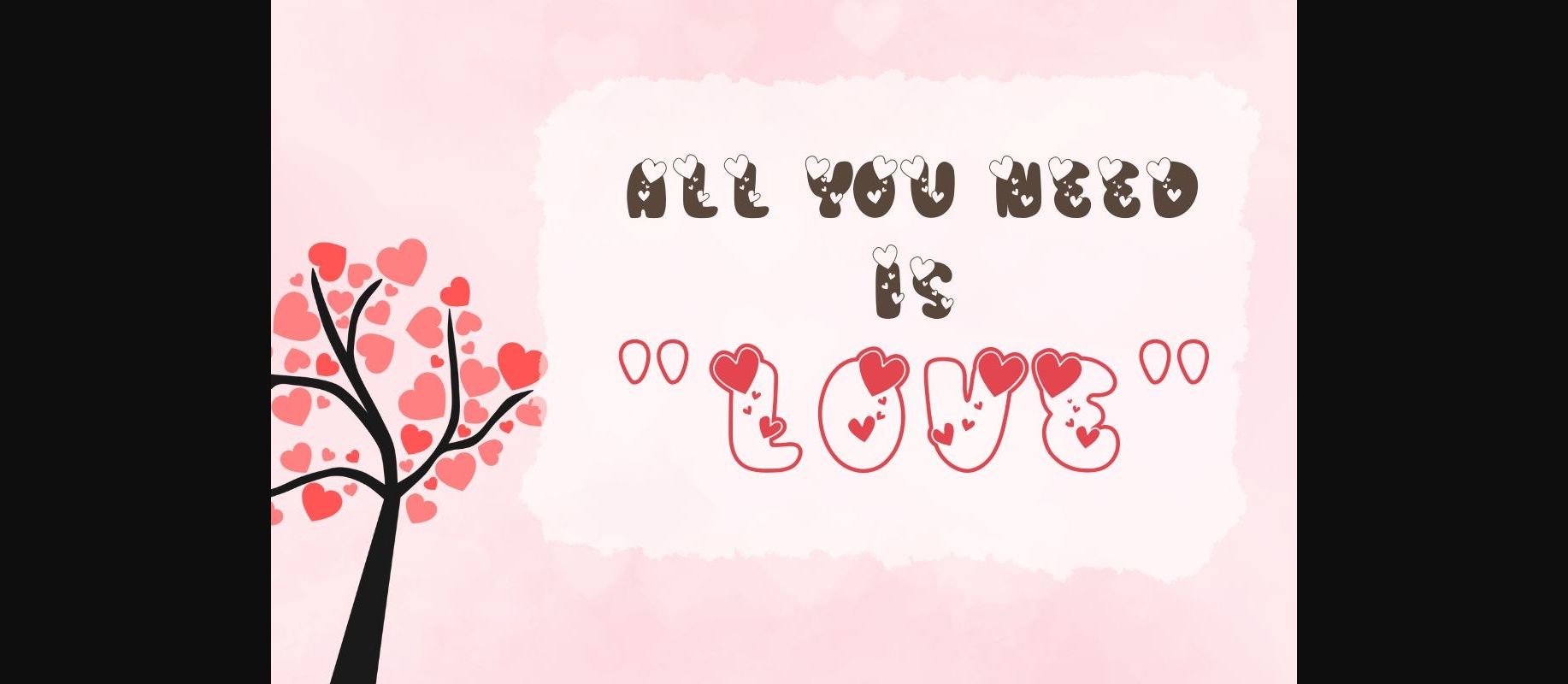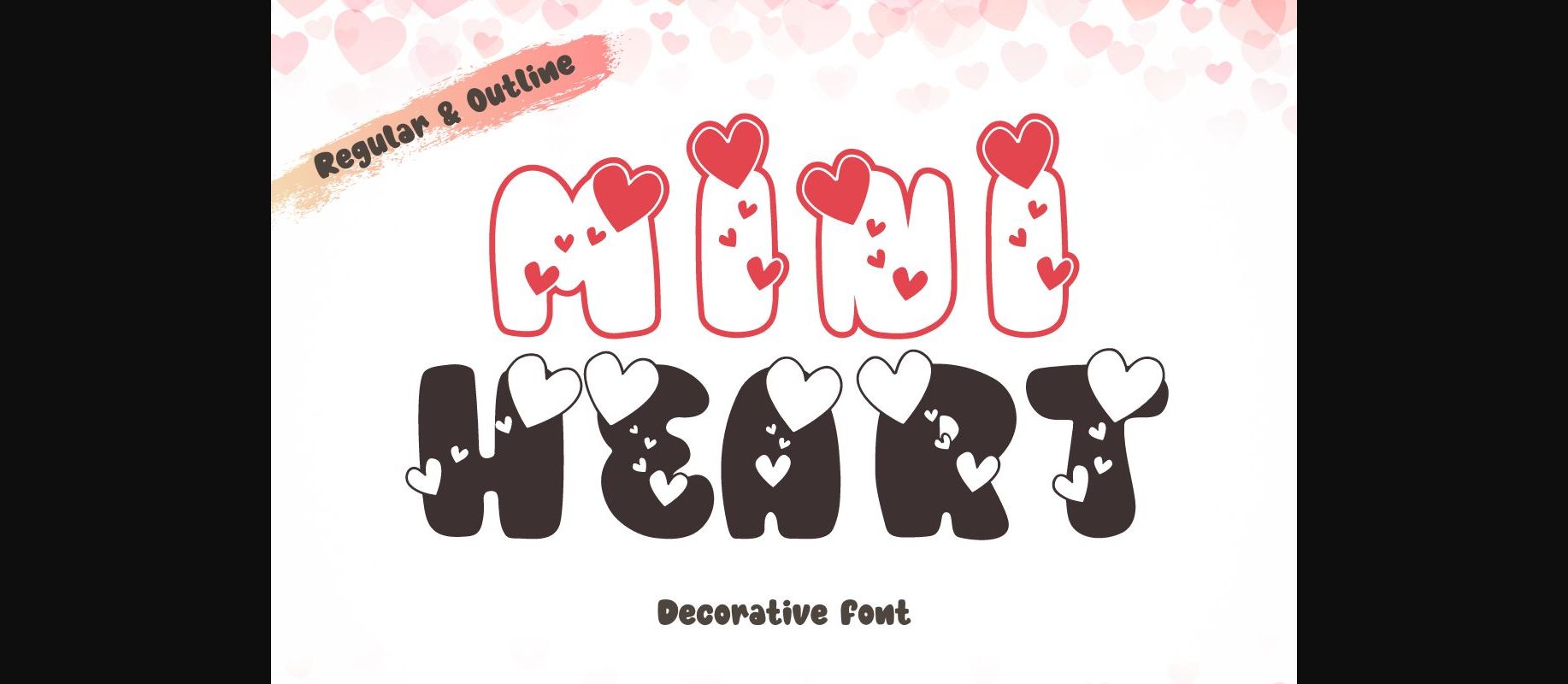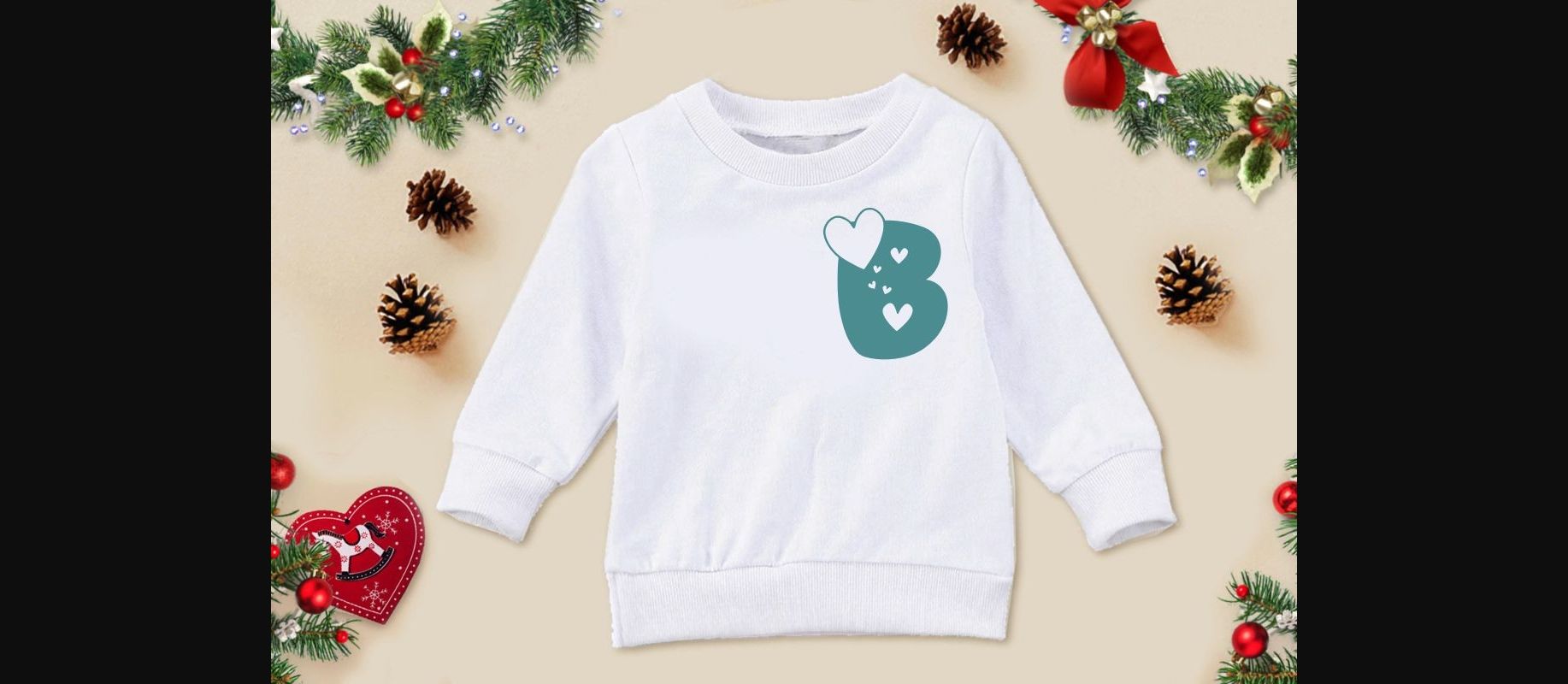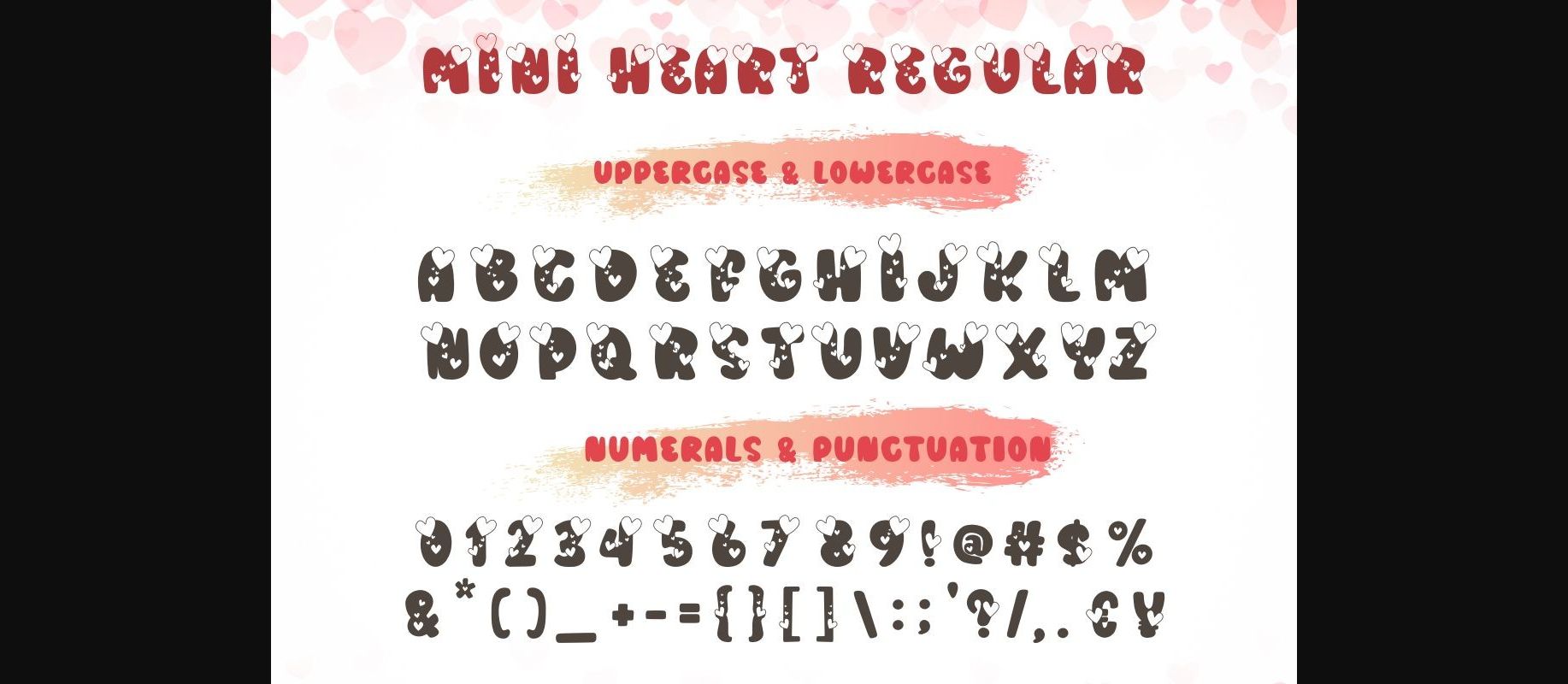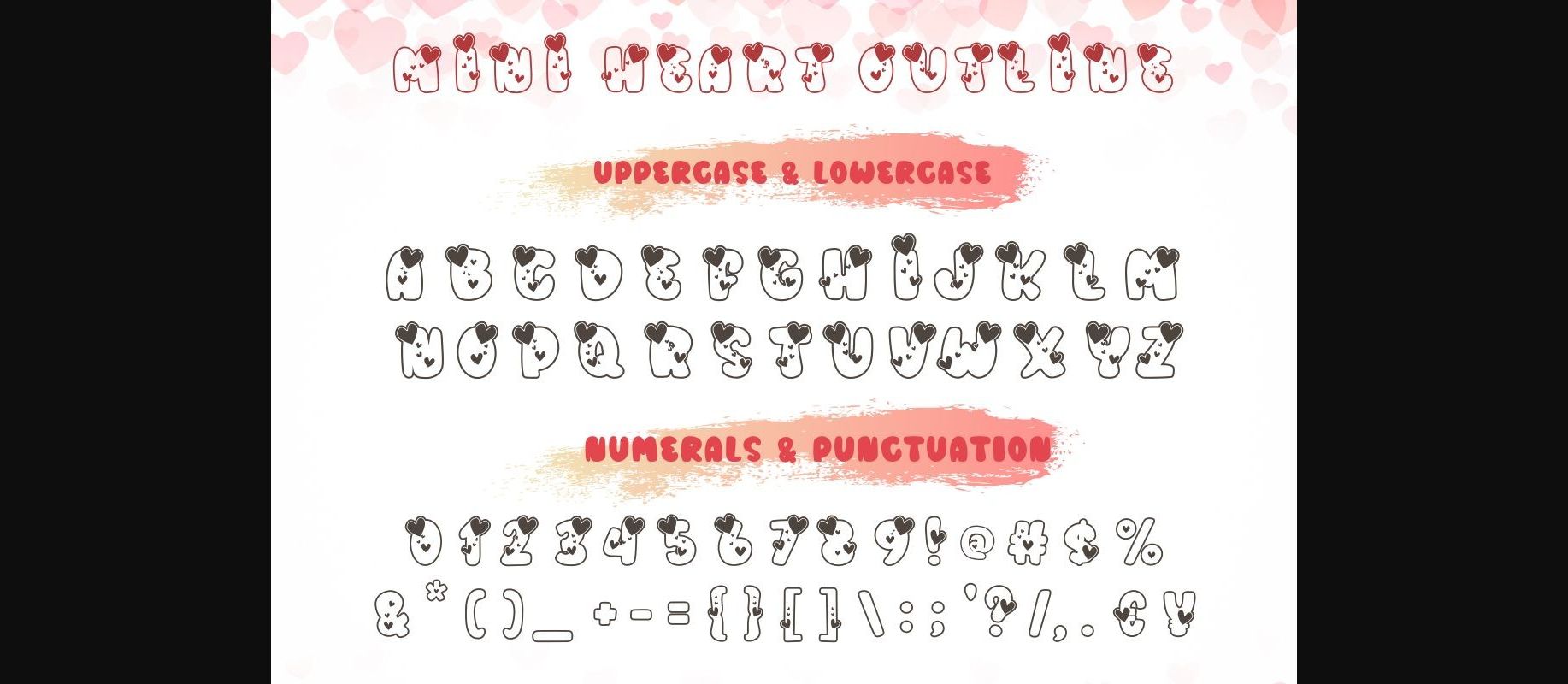
Mini Heart is a cute decorative font, that uses bold letters combined with small hearts. Perfect for creating a wide variety of designs such as banners, content, mugs, cards, shirts, stationery, social media posts, and more!